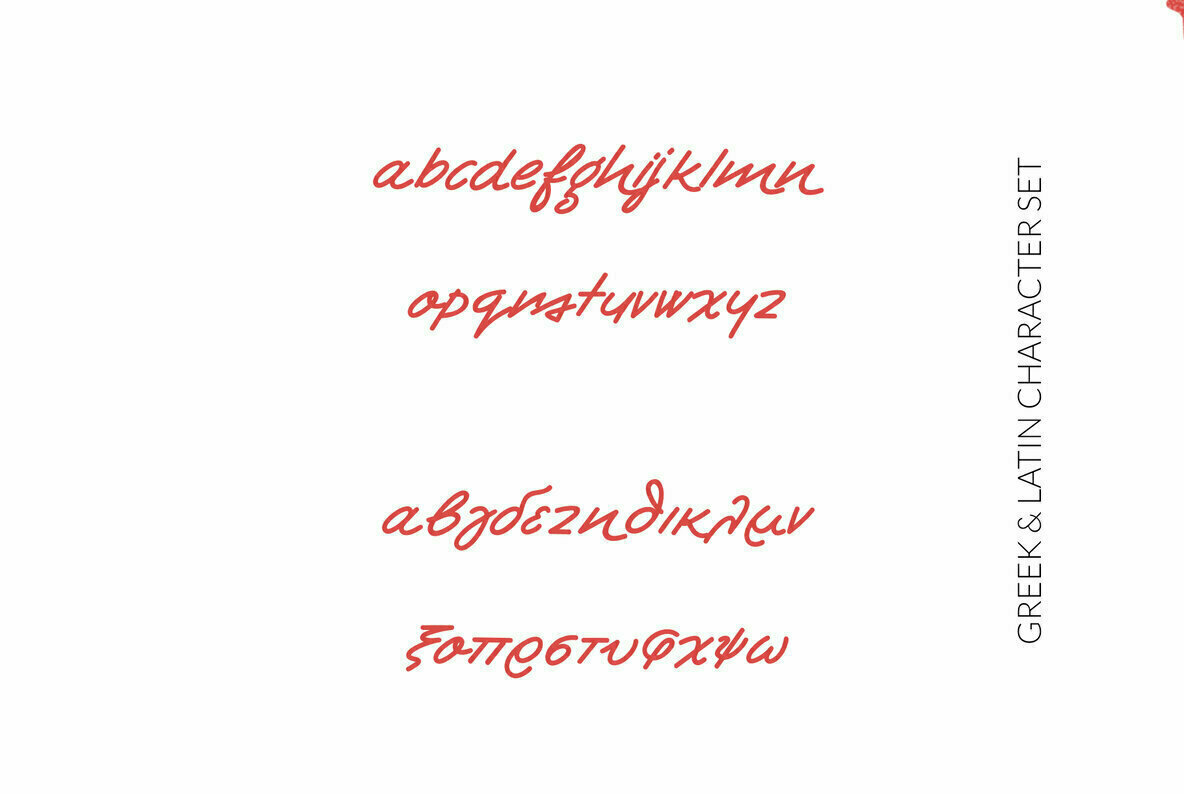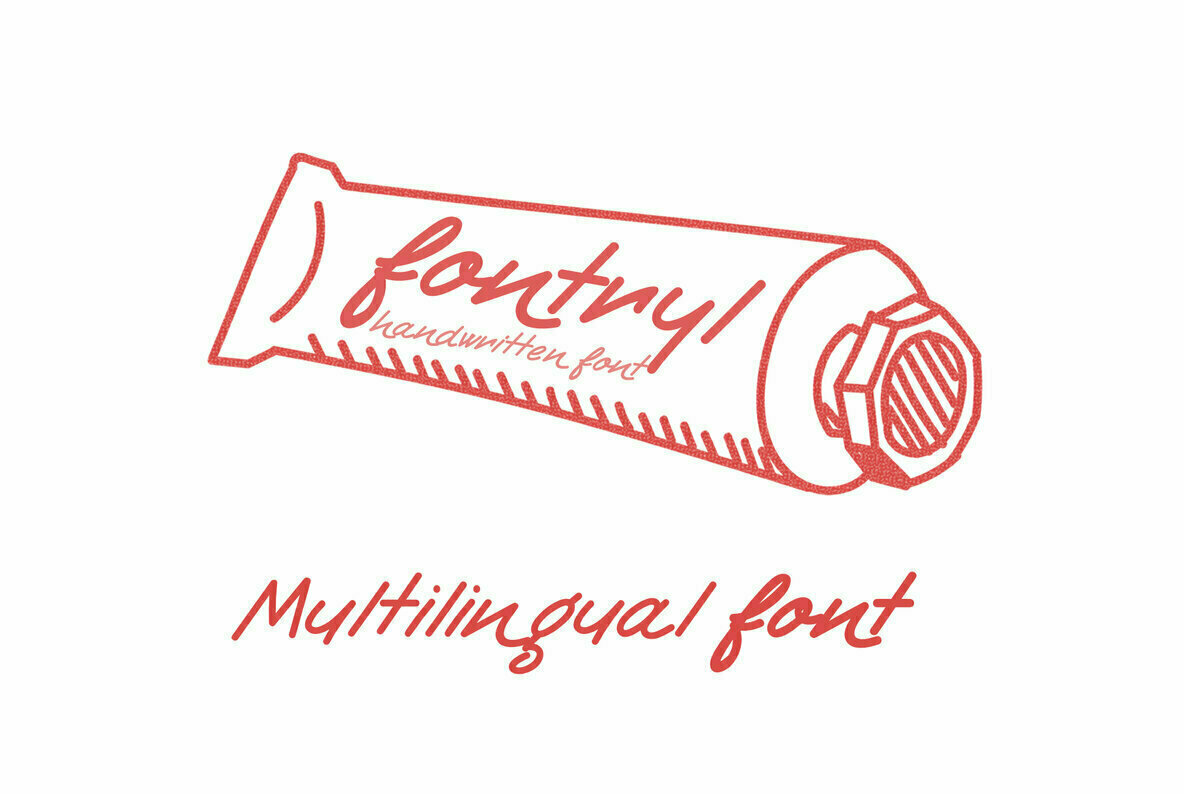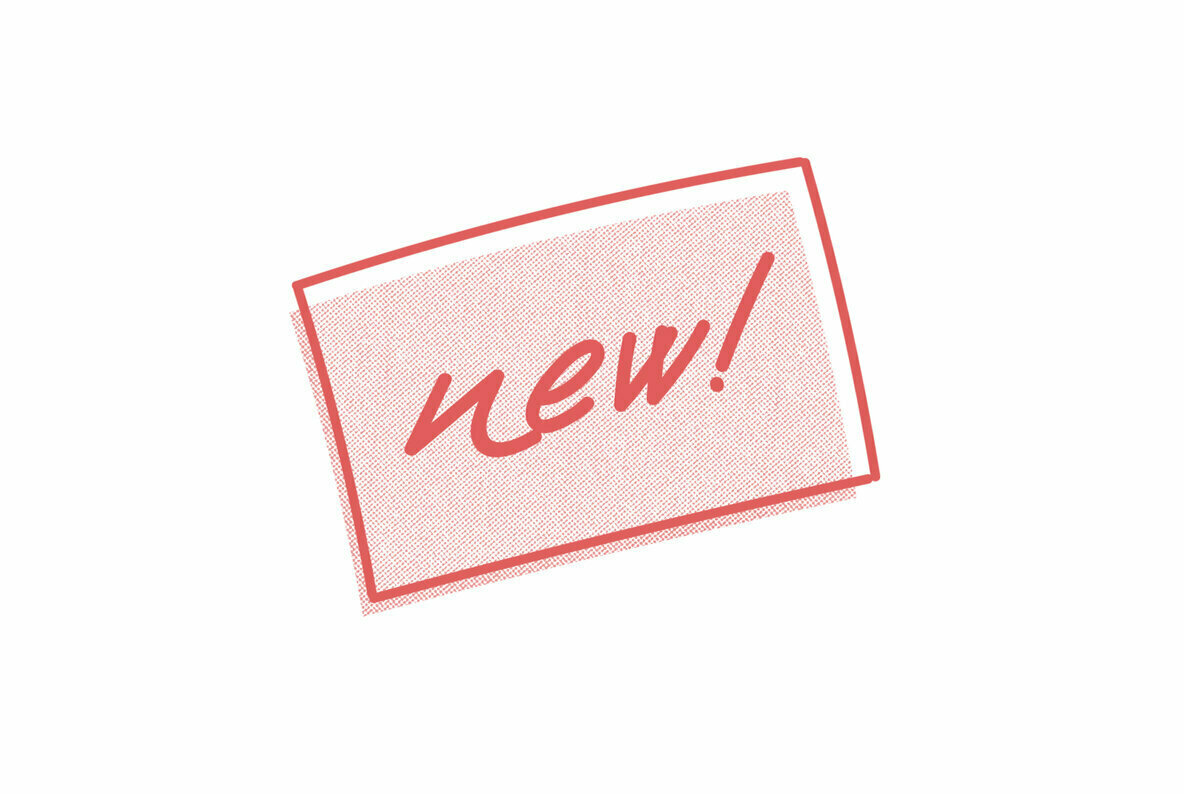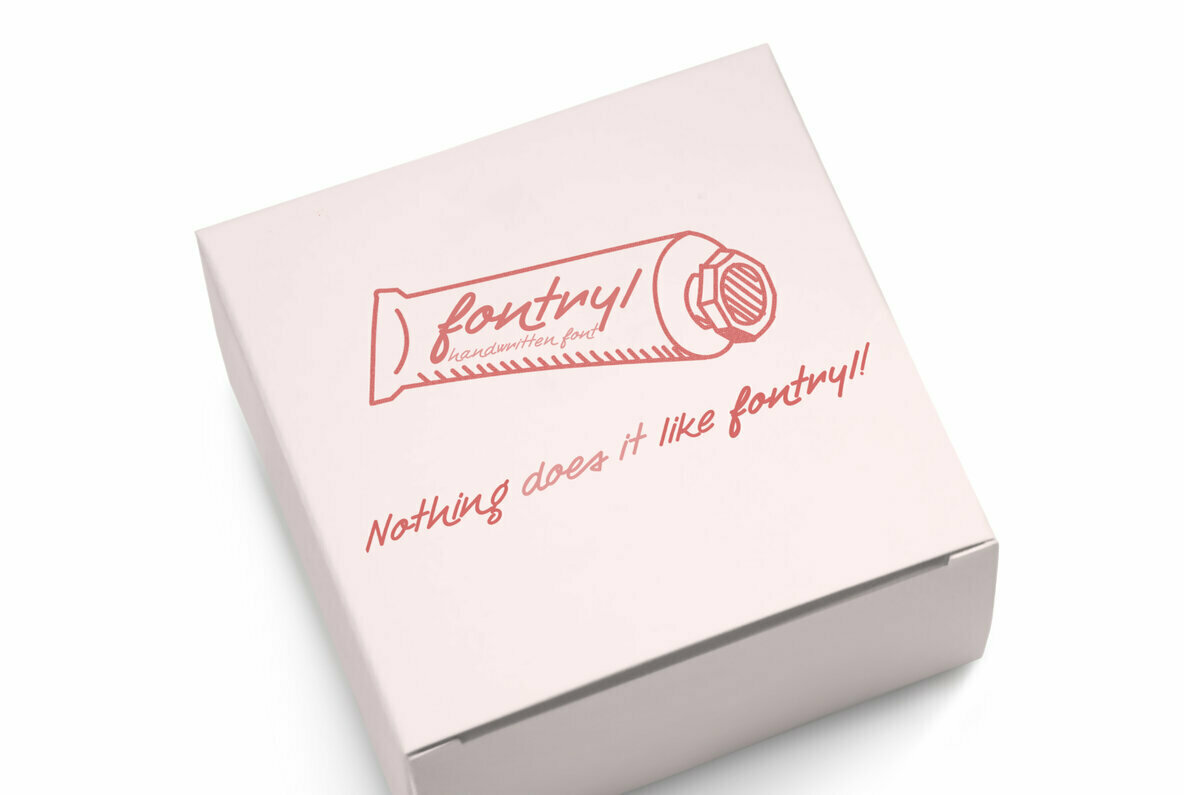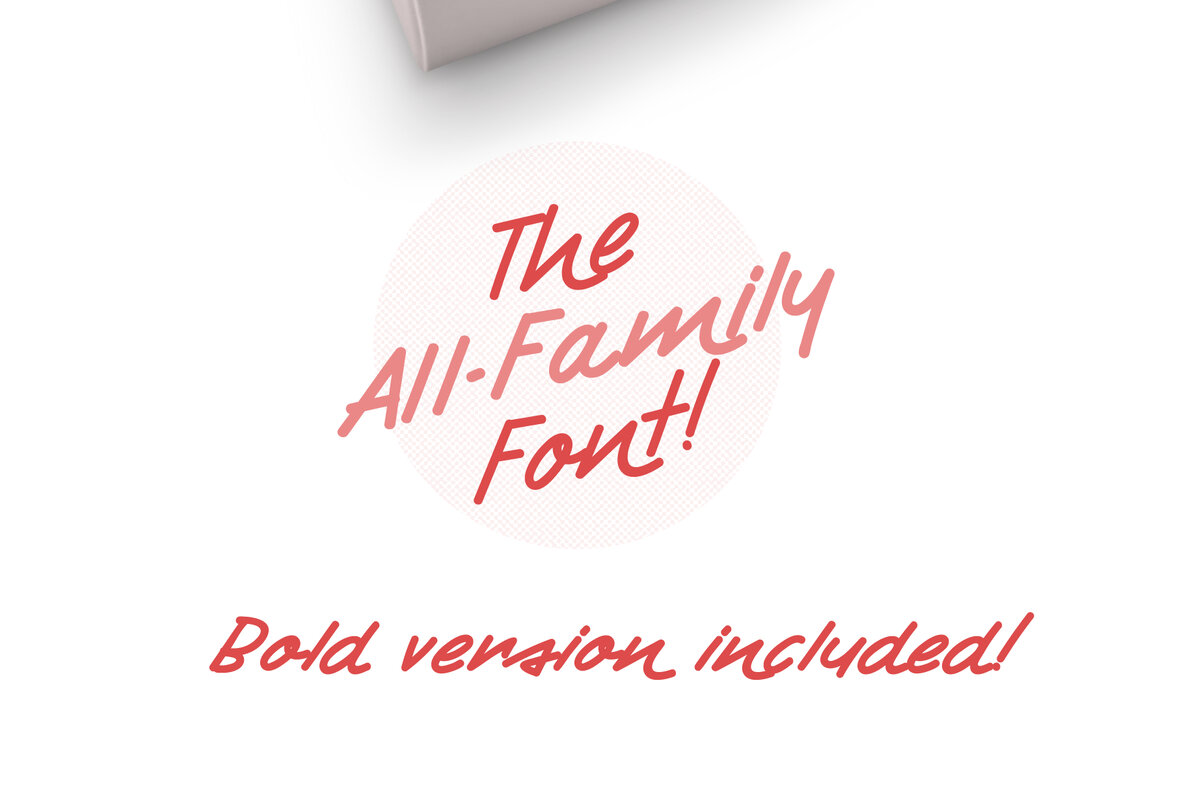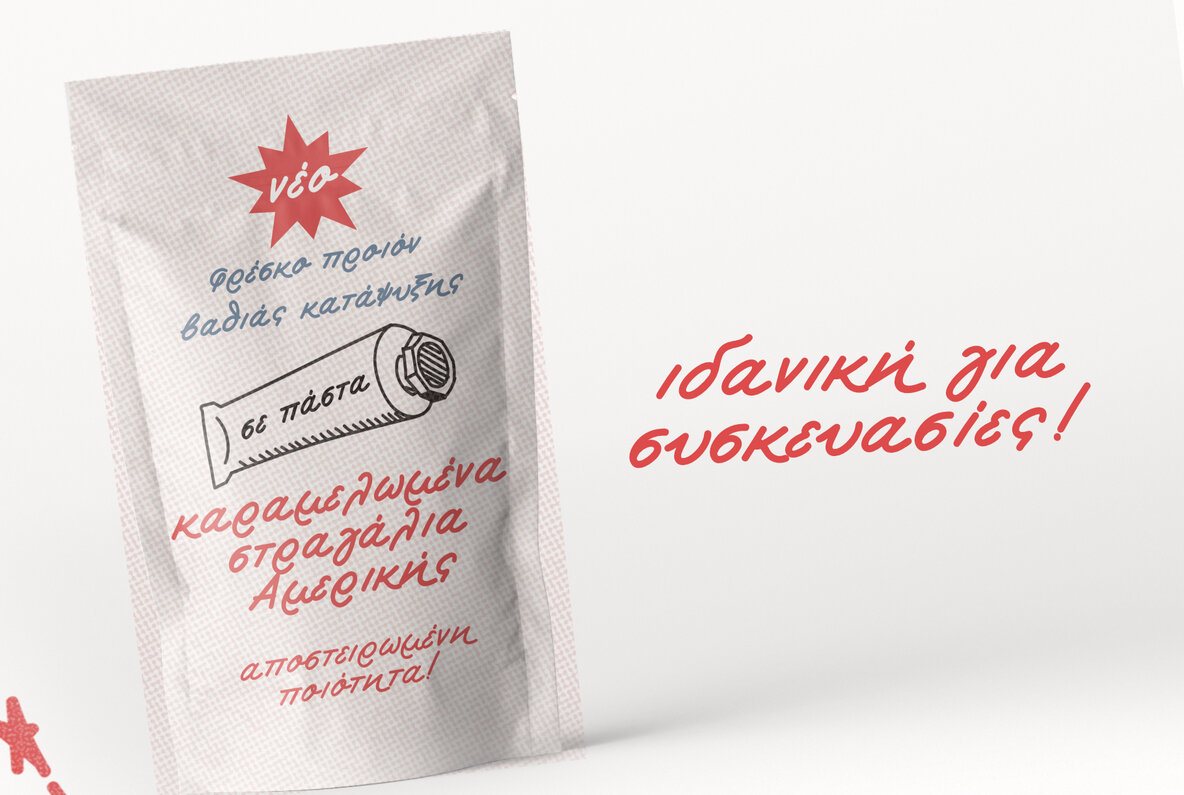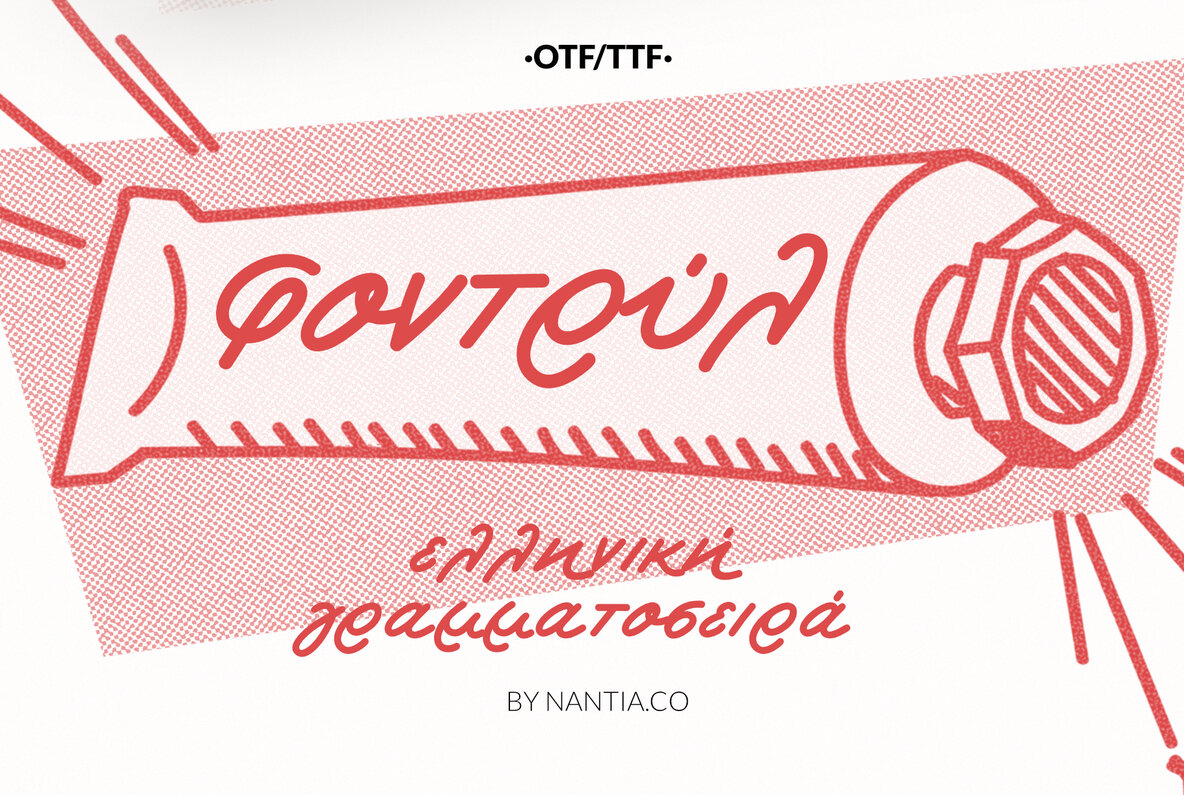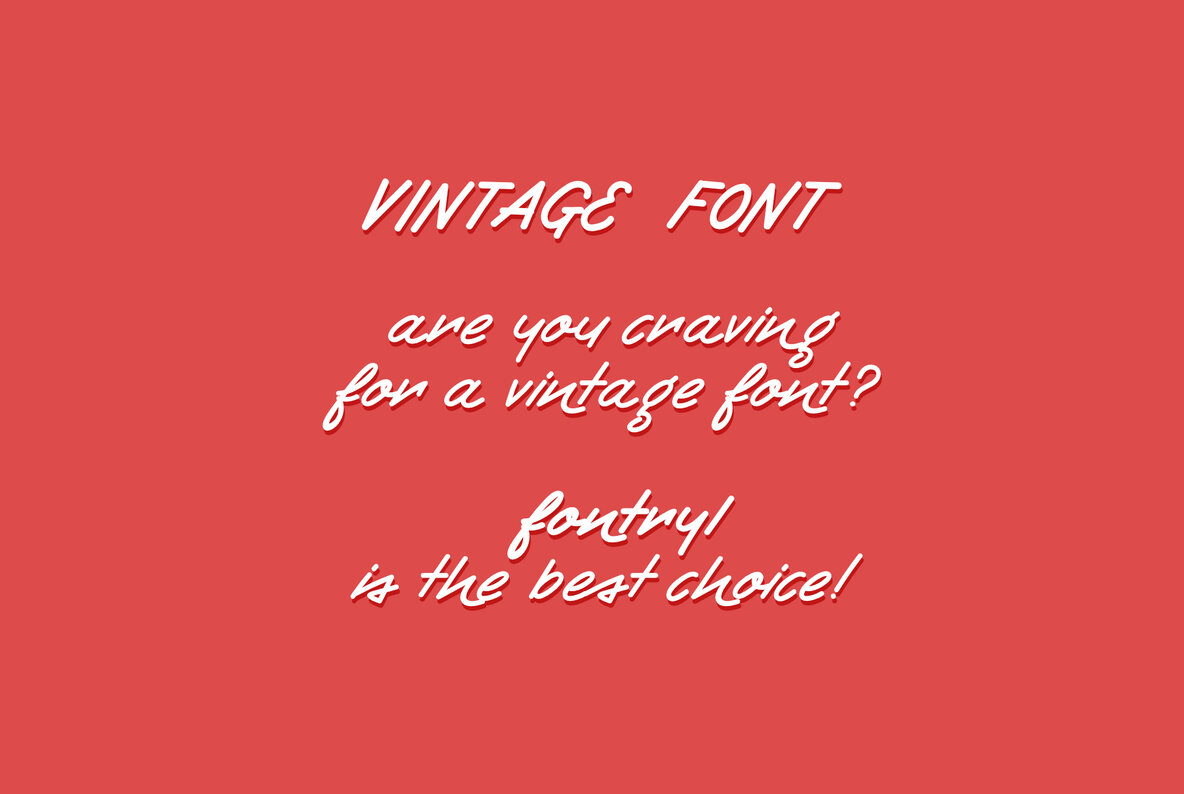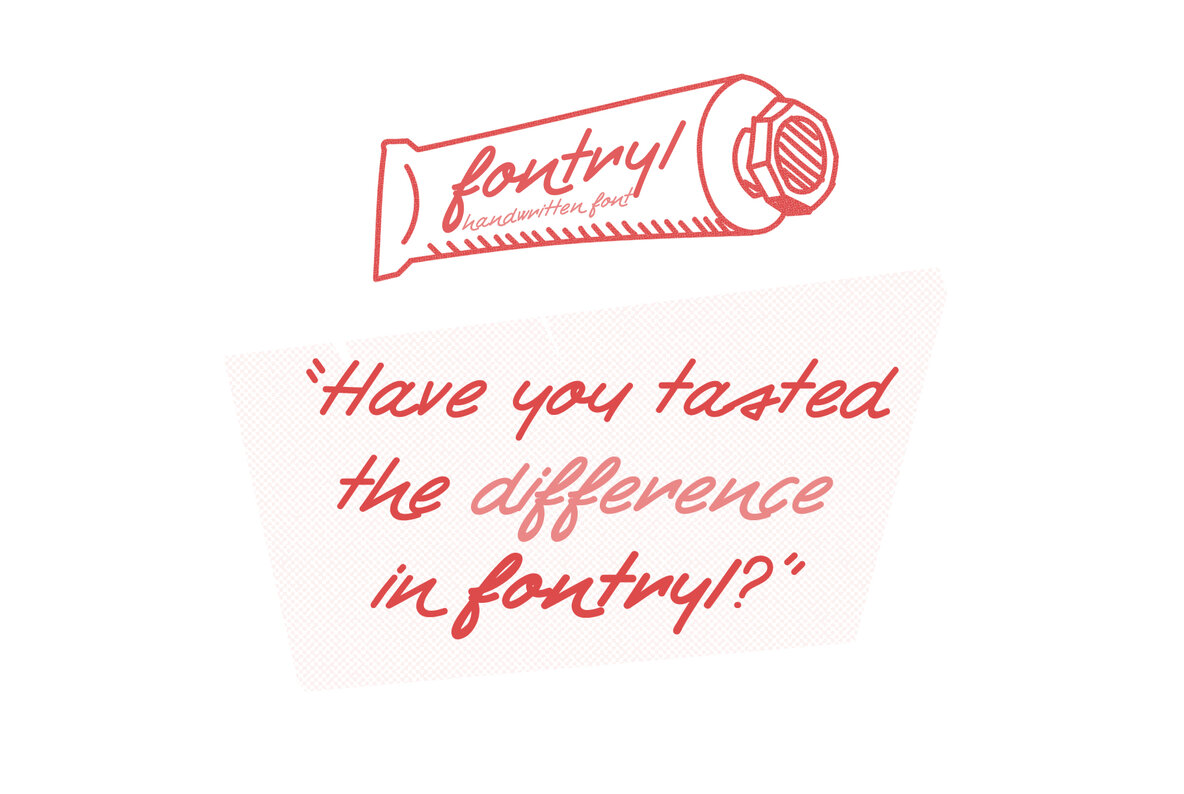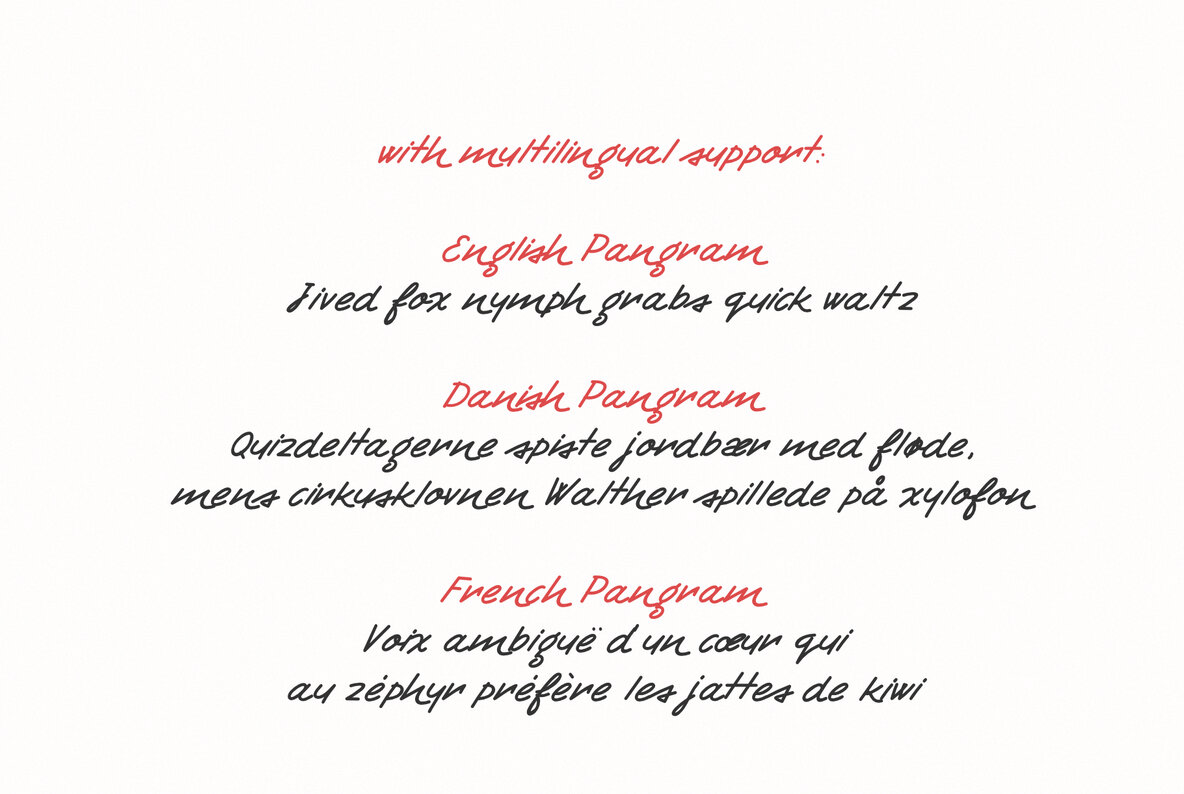
Fontryl
The Retro Handwritten Font Fontryl is a 100% handwritten font with which you can achieve a retro handwritten-type lettering feeling.
This typeface is a multilingual retro lettering font with Greek (of course), Latin characters and diacritics. Inspired by handwritten Greek 50s ads, this font is perfect for your vintage graphic design needs. This font has a really nice flow so you use it in a large text if you want to give them a touch of personality. In addition, this typeface can be used on social media content, for branding or packaging.
- Extended Latin
- Greek
- Punctuation Marks
- Numbers